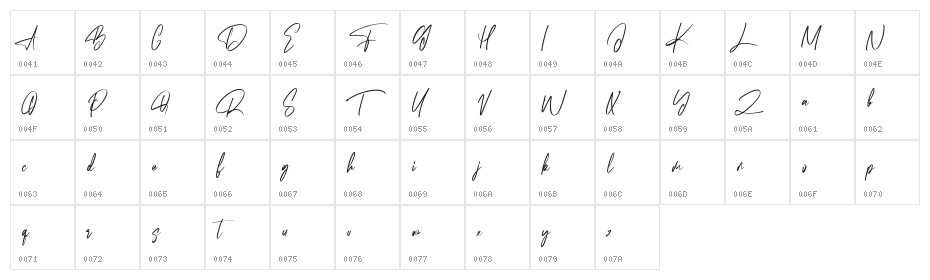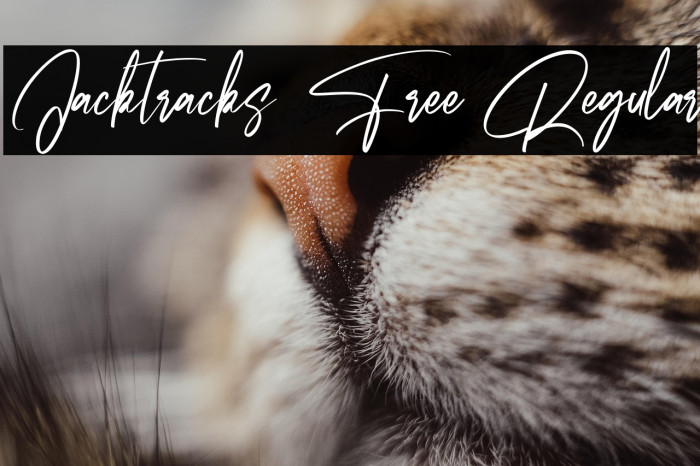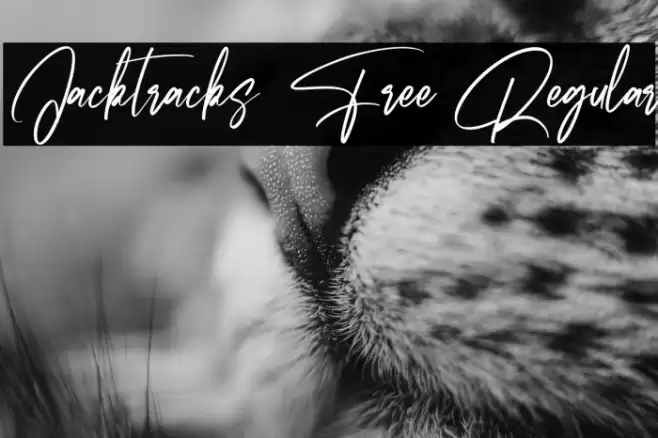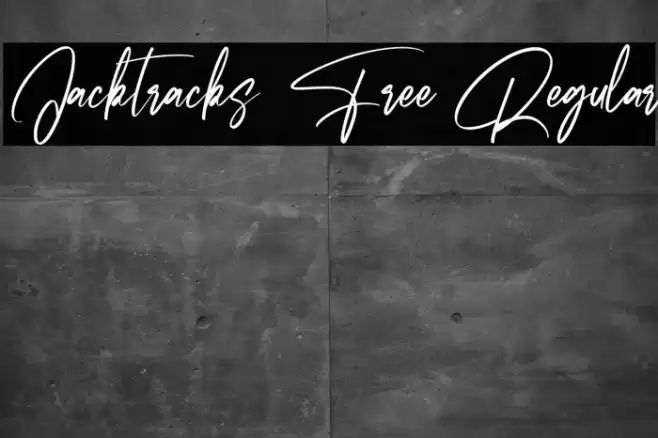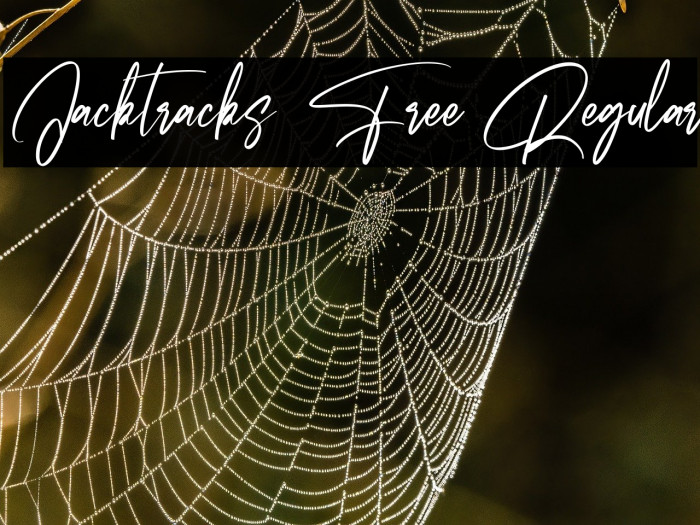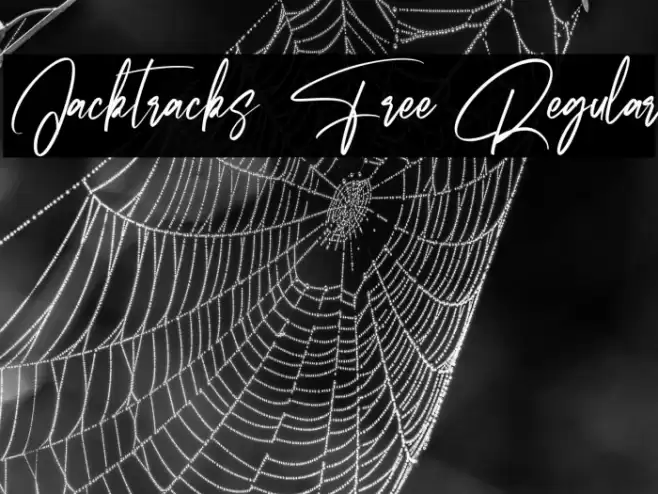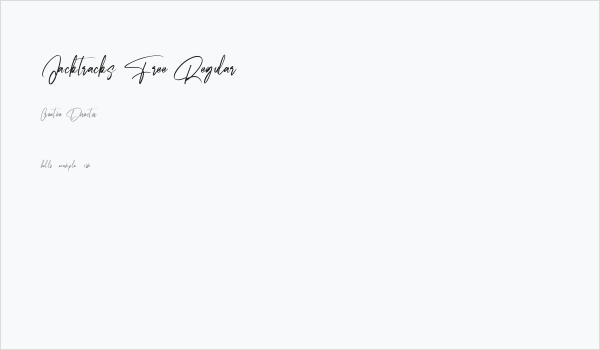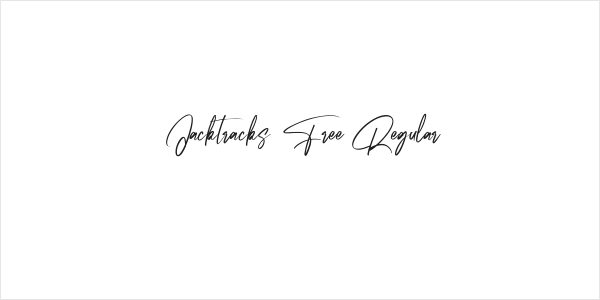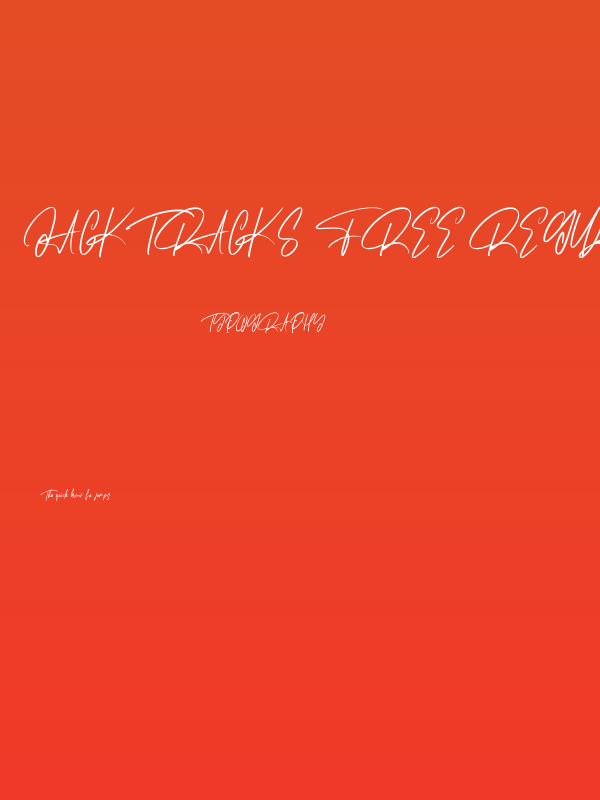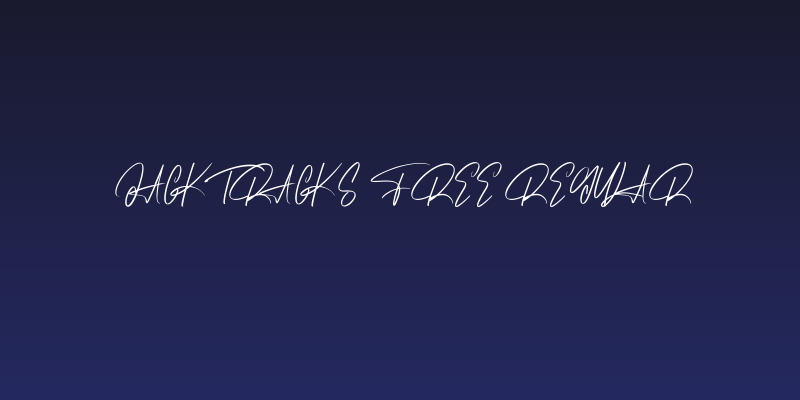
Jacktracks Free Regular Font
Jacktracks Free Regular Description
This font features an elegant, flowing script style that mimics the fluidity of natural handwriting. The characters are connected, creating a seamless and artistic appearance. The strokes are smooth and slightly varied in thickness, adding a touch of sophistication and dynamism. The uppercase letters are bold and prominent, while the lowercase letters maintain a delicate and graceful form. This font exudes a sense of creativity and personal touch, making it ideal for projects that require a handwritten aesthetic.
| Proposed Projects | Ideal for wedding invitations, greeting cards, personal branding, and artistic projects that require a personal touch. |